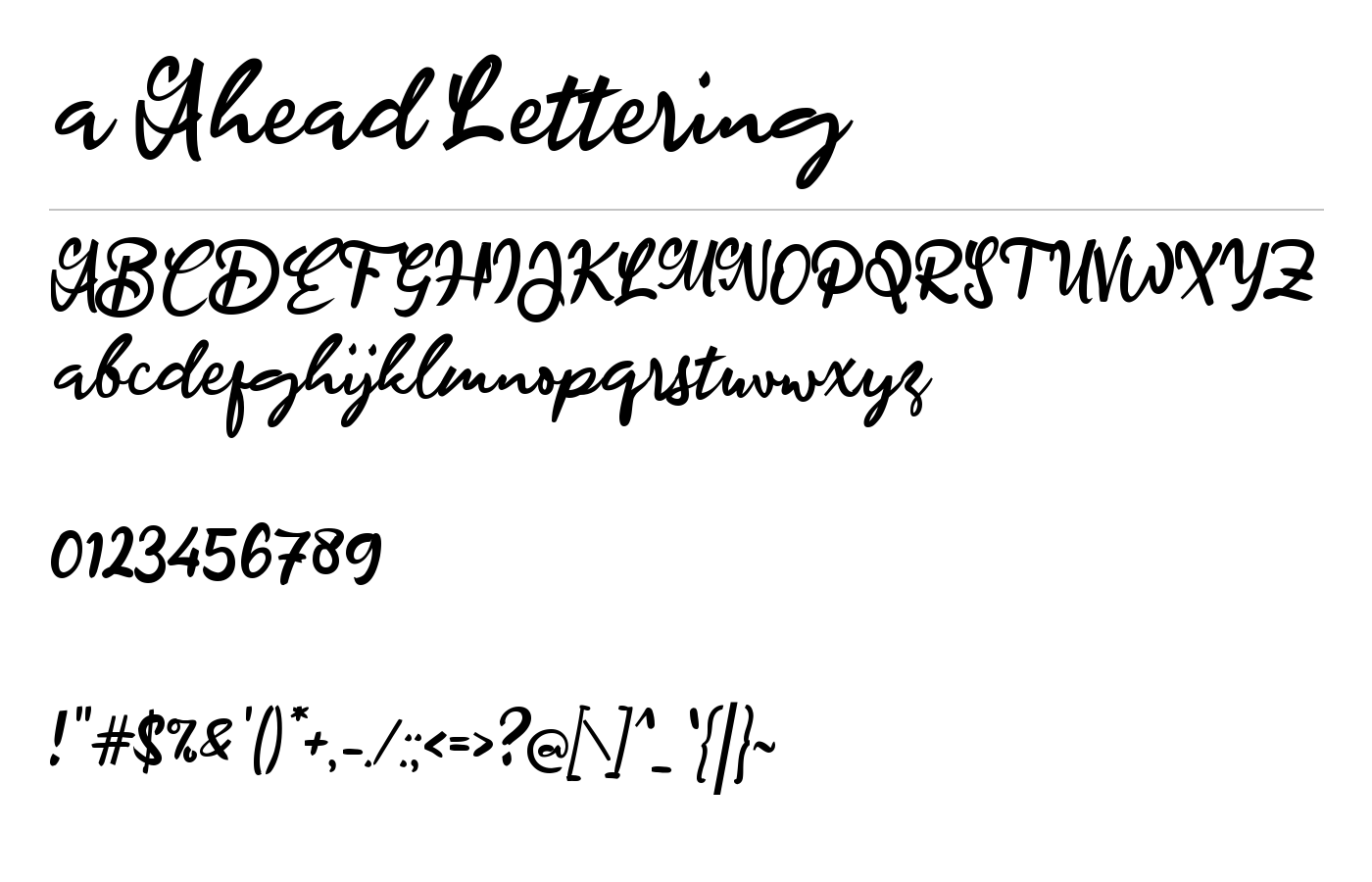
Ahead Lettering is a lively and casual script font that captures the charm of hand-drawn calligraphy with smooth, flowing strokes and a slightly bold weight. Its playful letterforms and natural rhythm make it perfect for creative projects, branding, and invitations where a warm, personal touch is needed. This font shines in headlines and decorative uses, bringing an inviting, friendly personality to any design.
a Ahead Lettering Font
About a Ahead Lettering Font